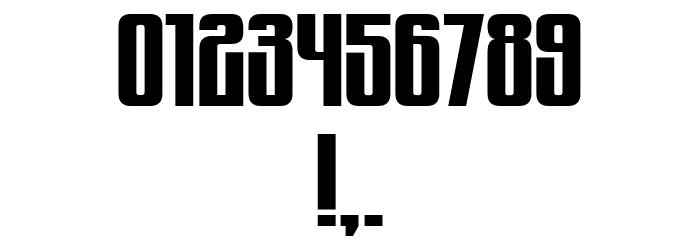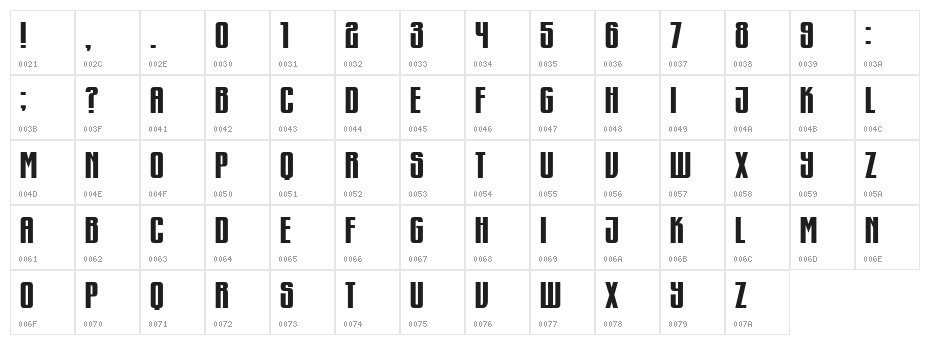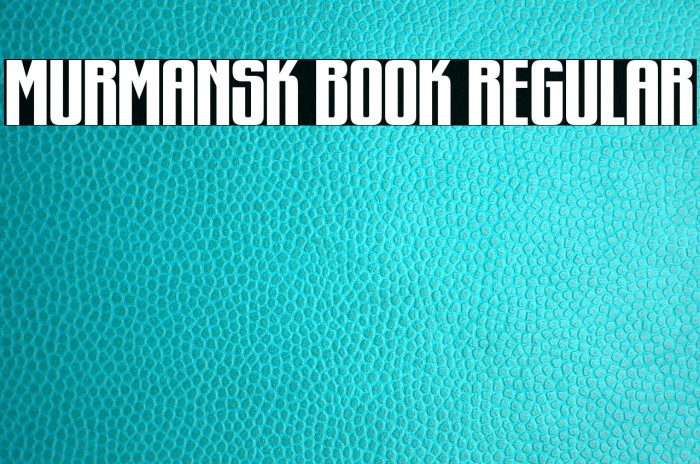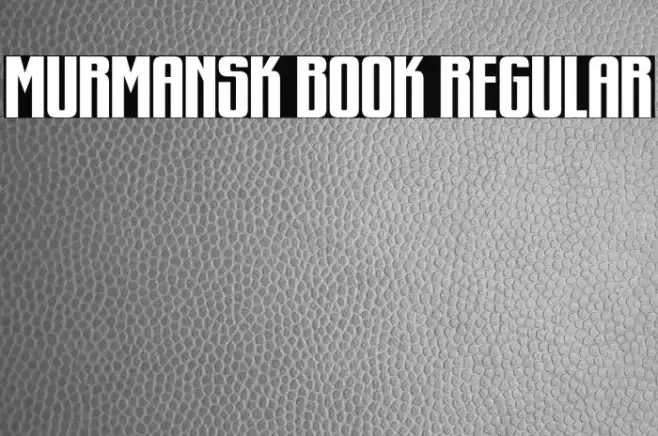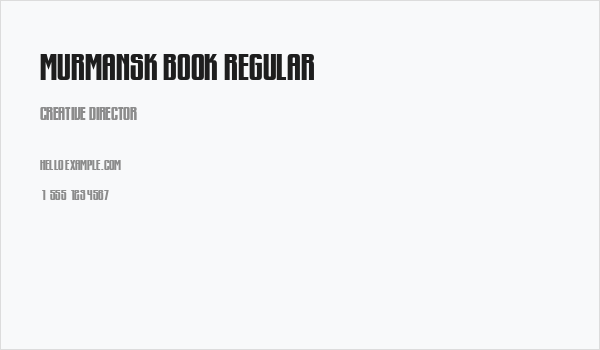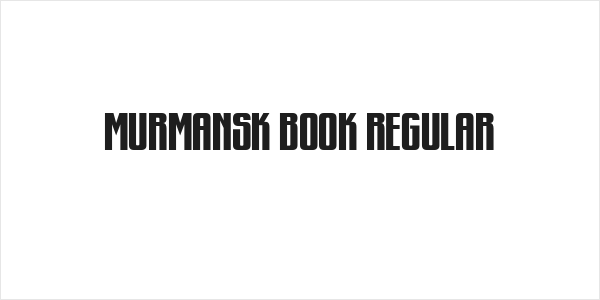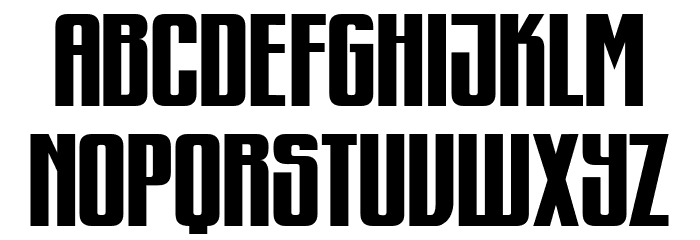
Murmansk Book Regular Font
Murmansk Book Regular Description
This font features a bold and striking design with a strong geometric structure. The characters are tall and narrow, with a consistent width that gives a uniform appearance. The uppercase letters are particularly prominent, showcasing a modern and industrial aesthetic. The numbers and punctuation marks follow the same bold style, ensuring a cohesive look across all characters. The font's clean lines and sharp angles make it highly legible, even at smaller sizes. Its boldness and unique style make it ideal for attention-grabbing headlines and impactful designs.